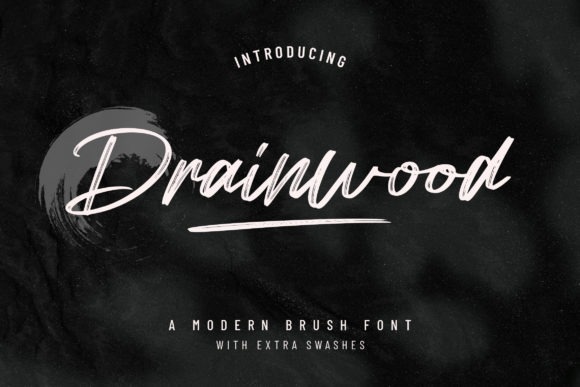
Drainwood Brush Font
This typeface designed by Fontherapy is a Hand brush Script Font. This font is made in a modern style, casual, strong, elegant, and suitable for your various design needs. Whether you’re using it for crafting, digital designing, presentations or greeting cards making, it’s perfect!